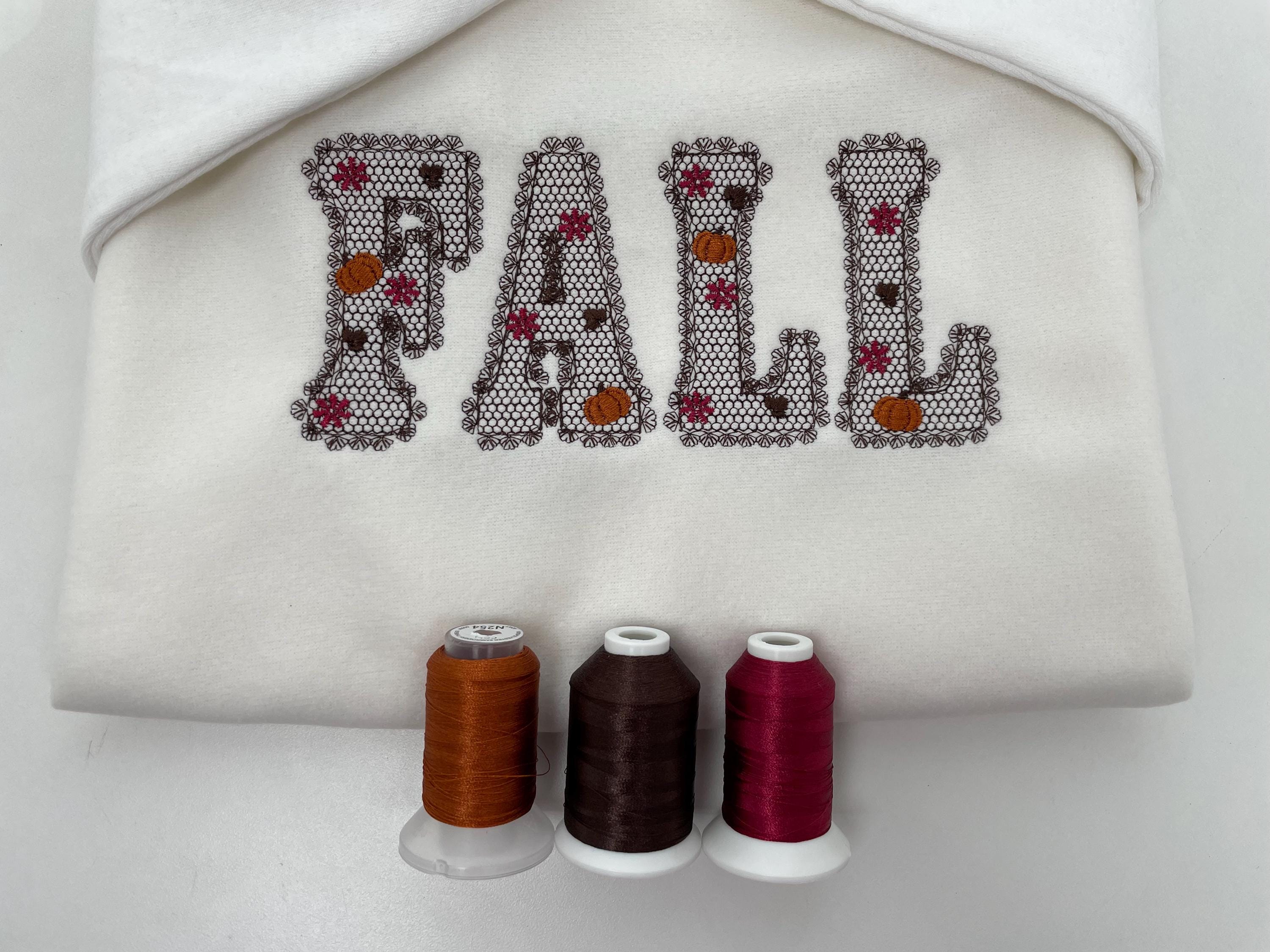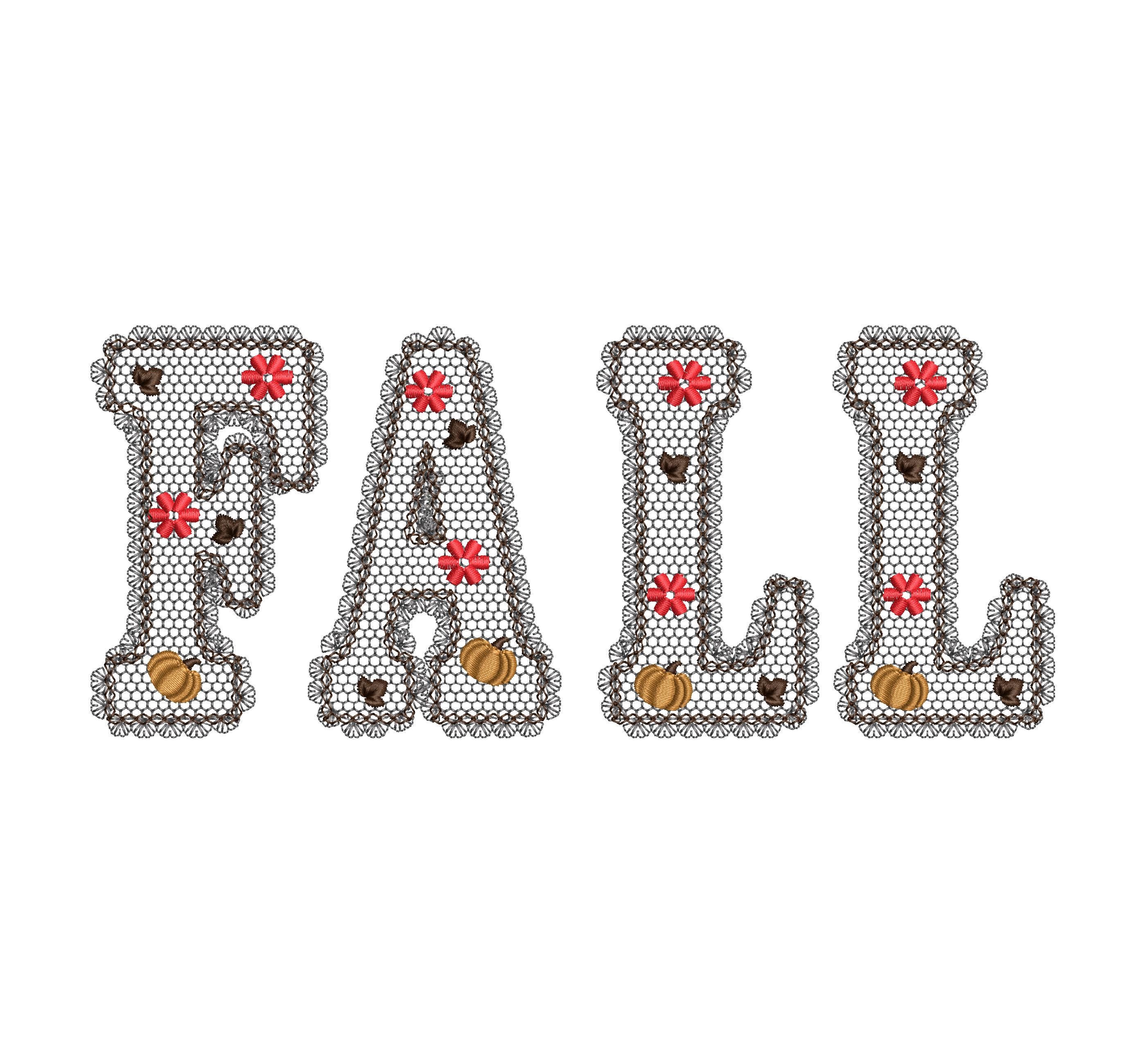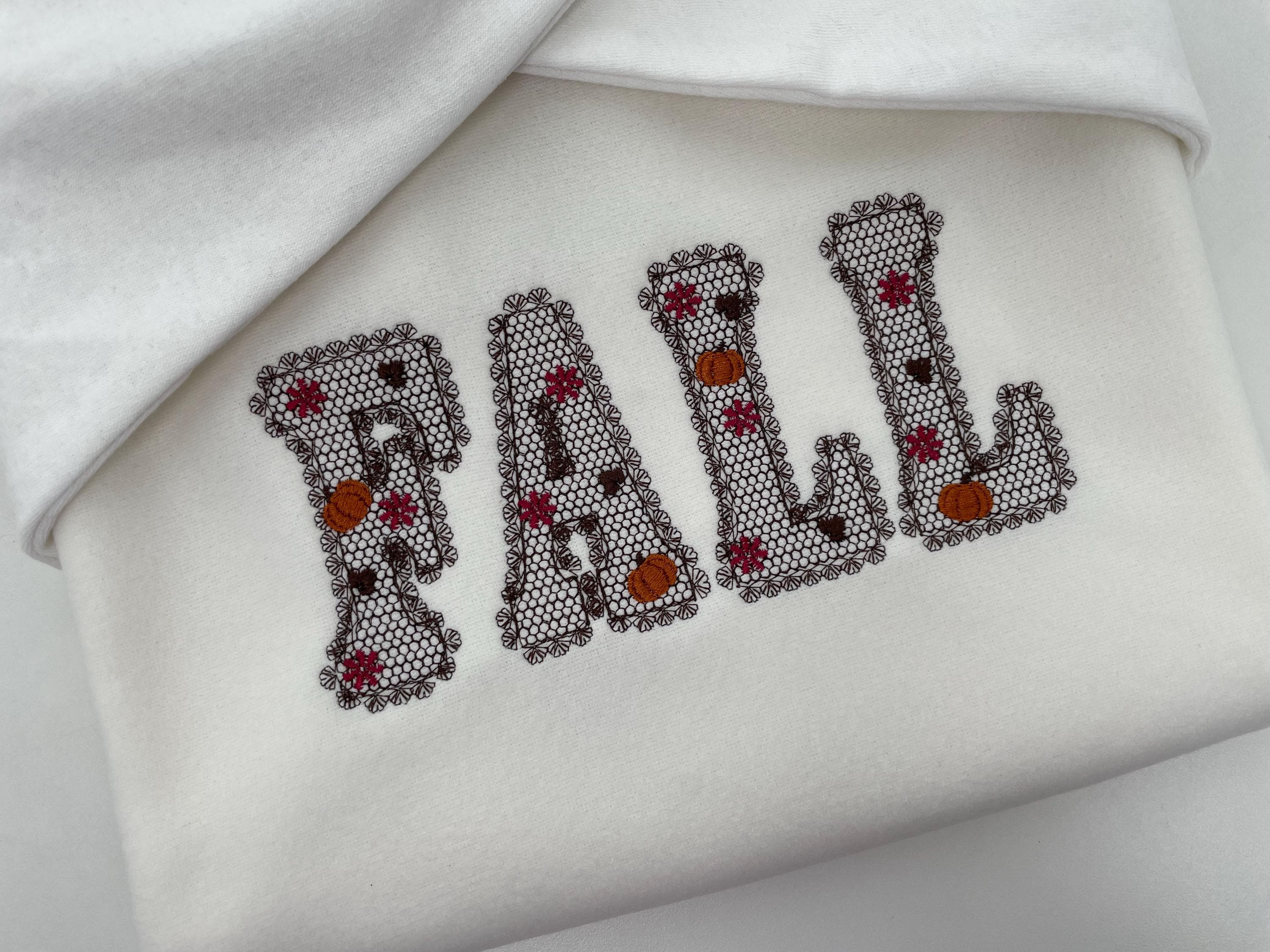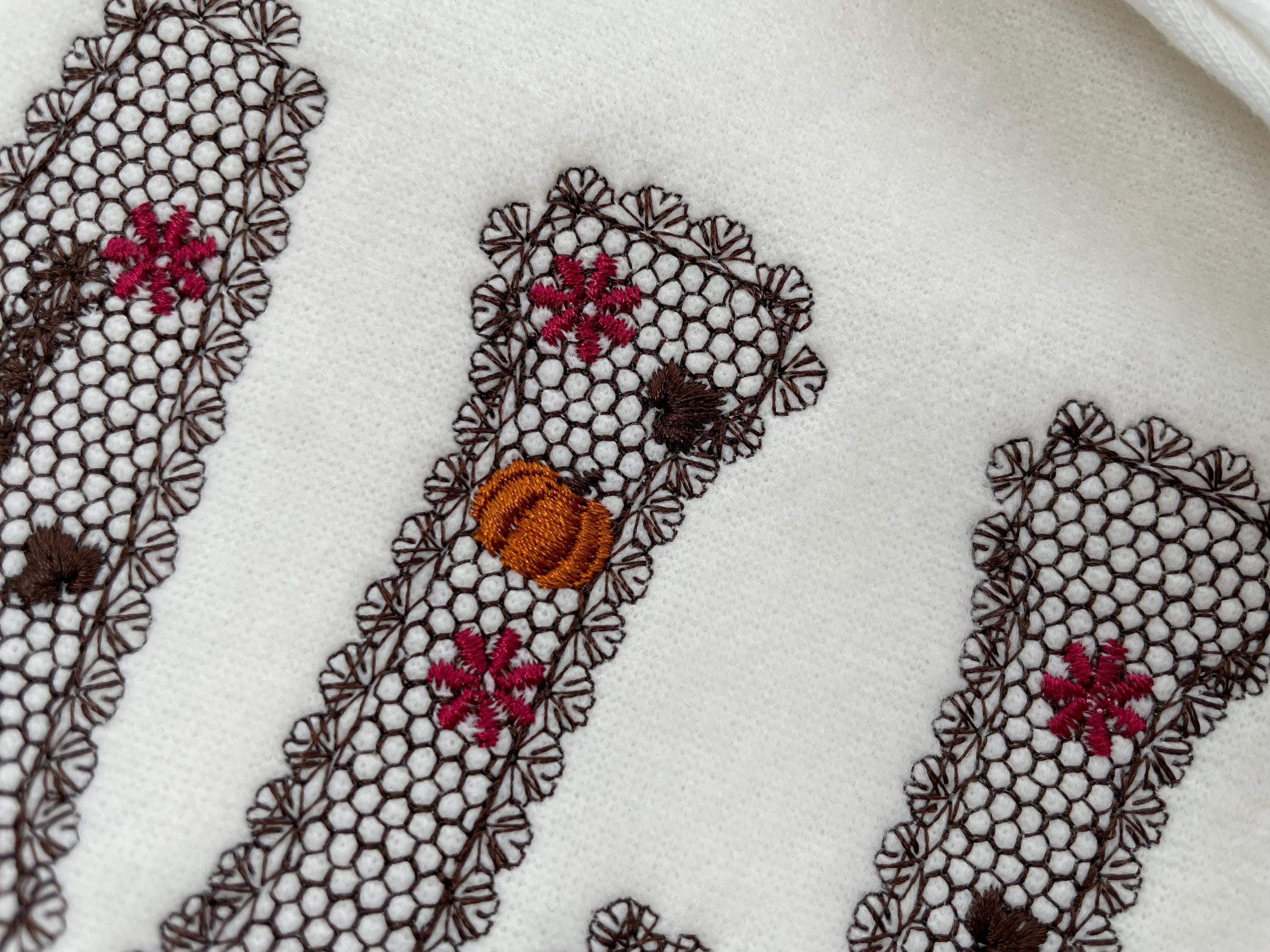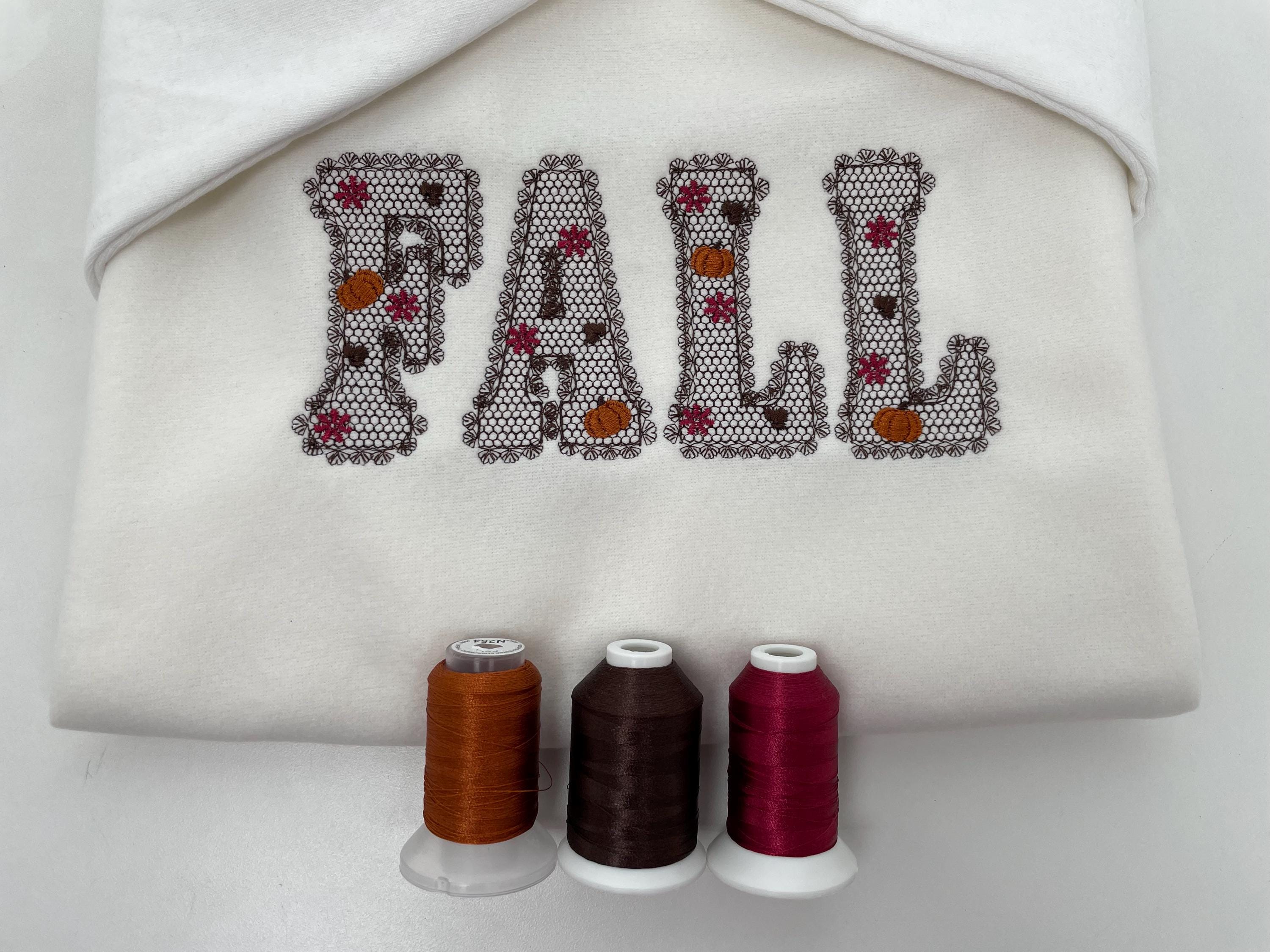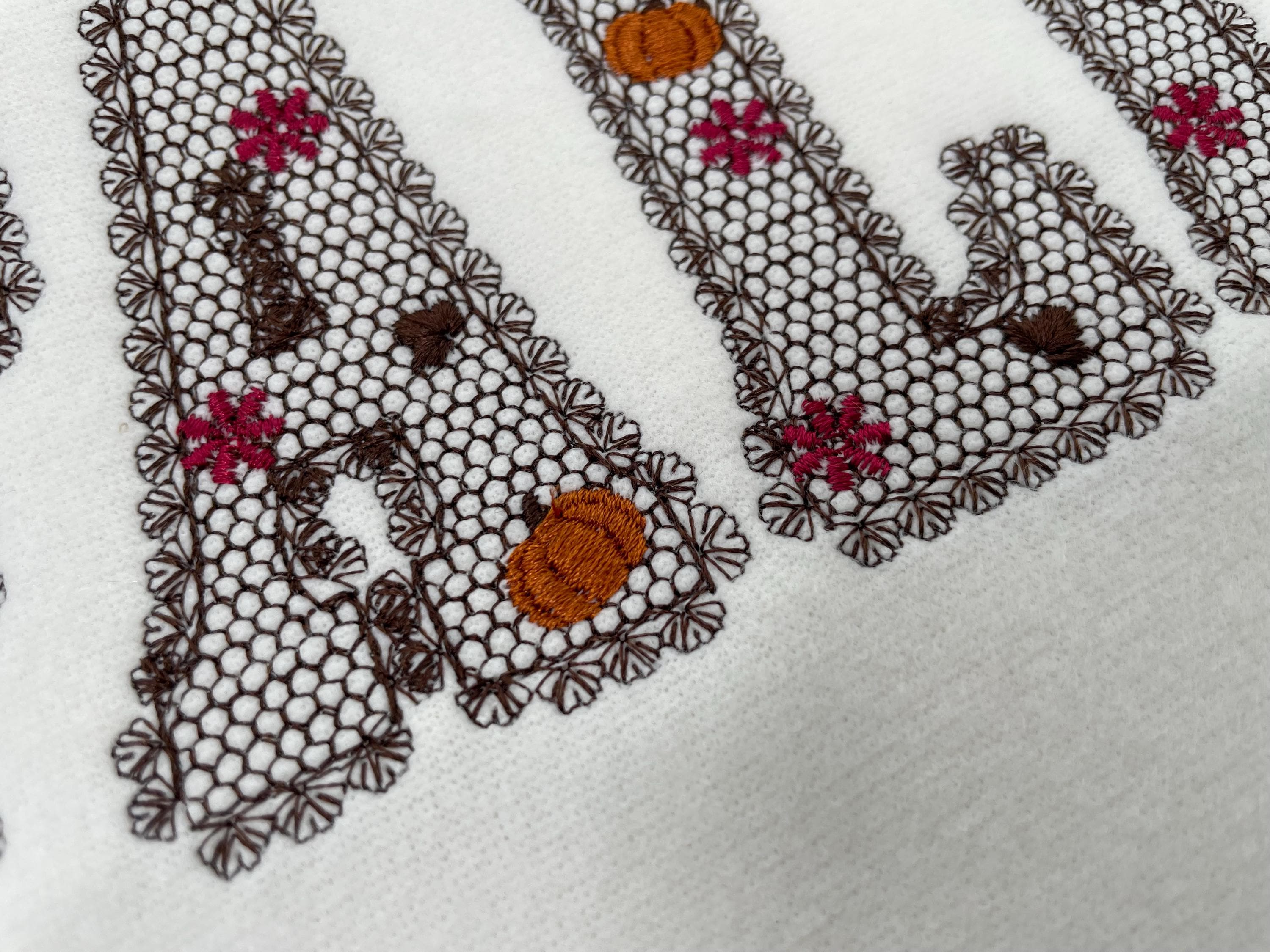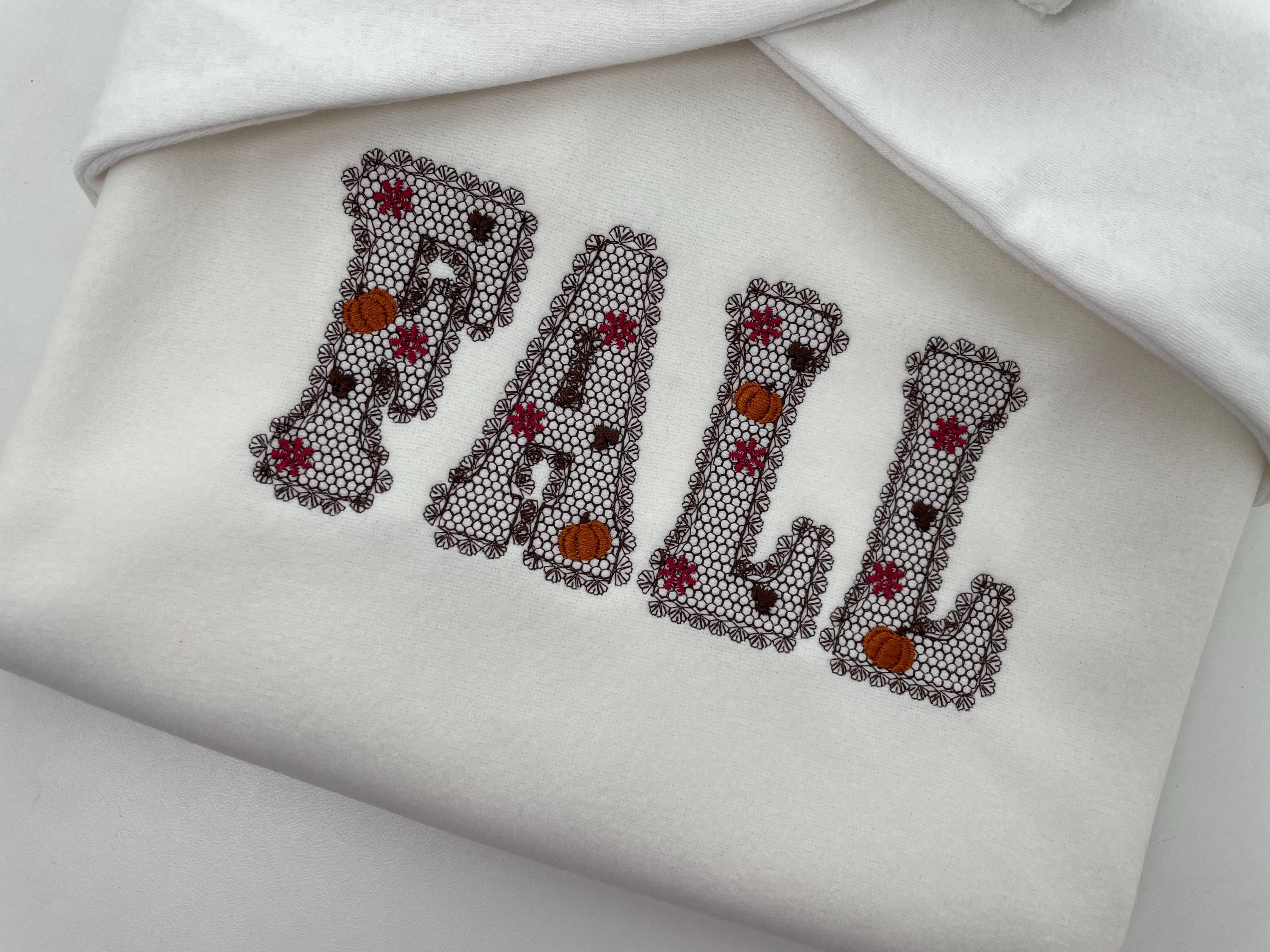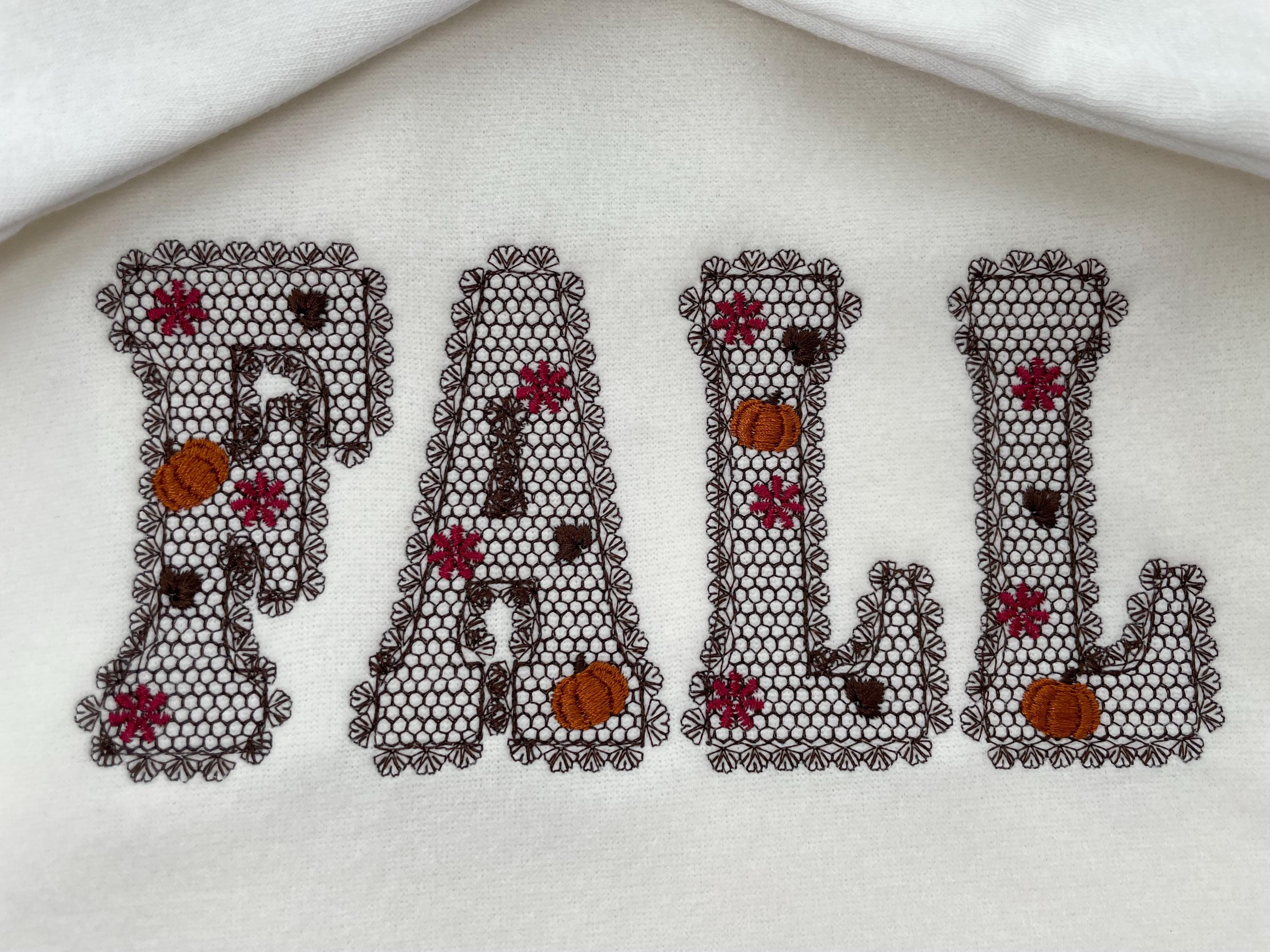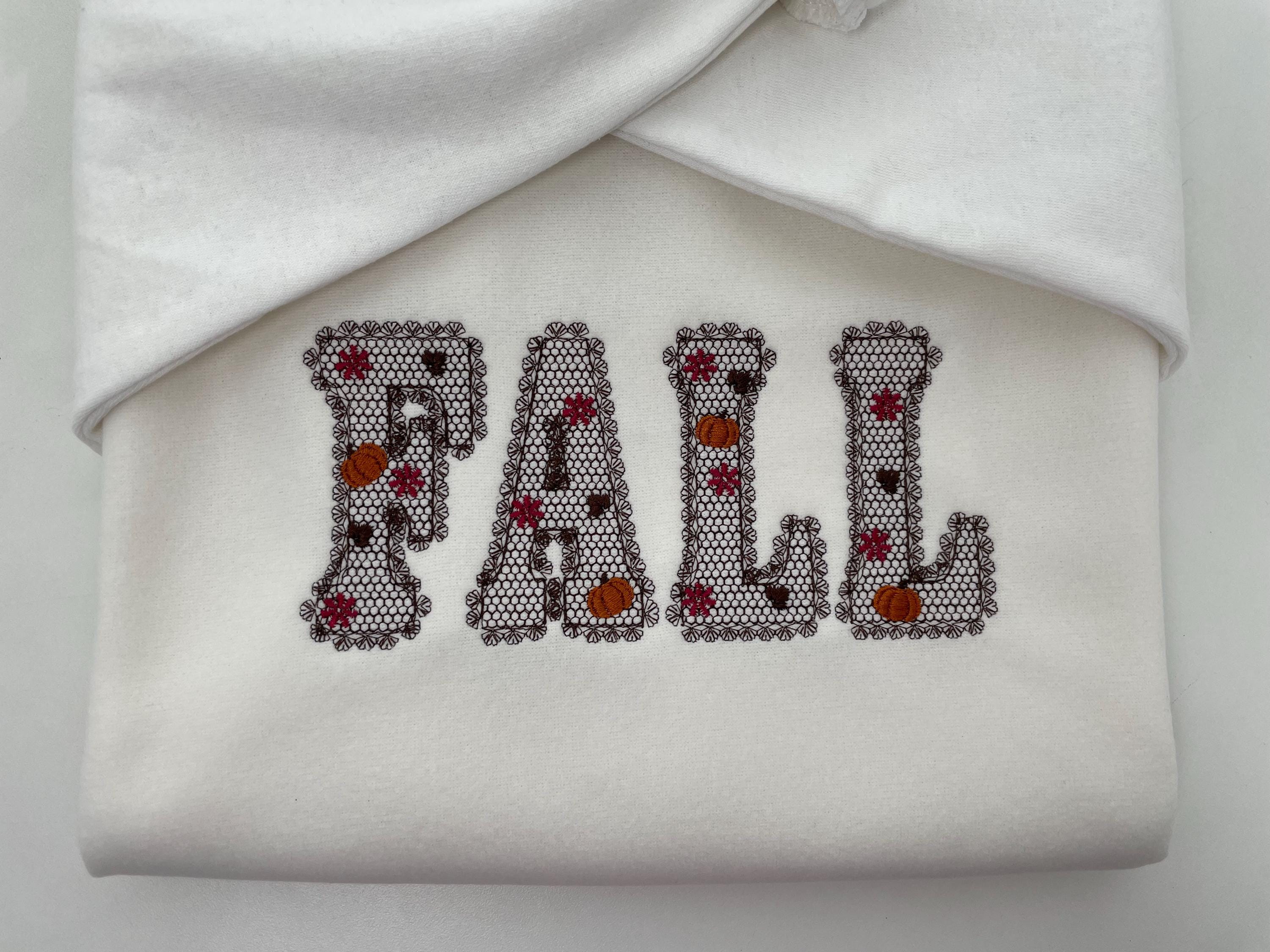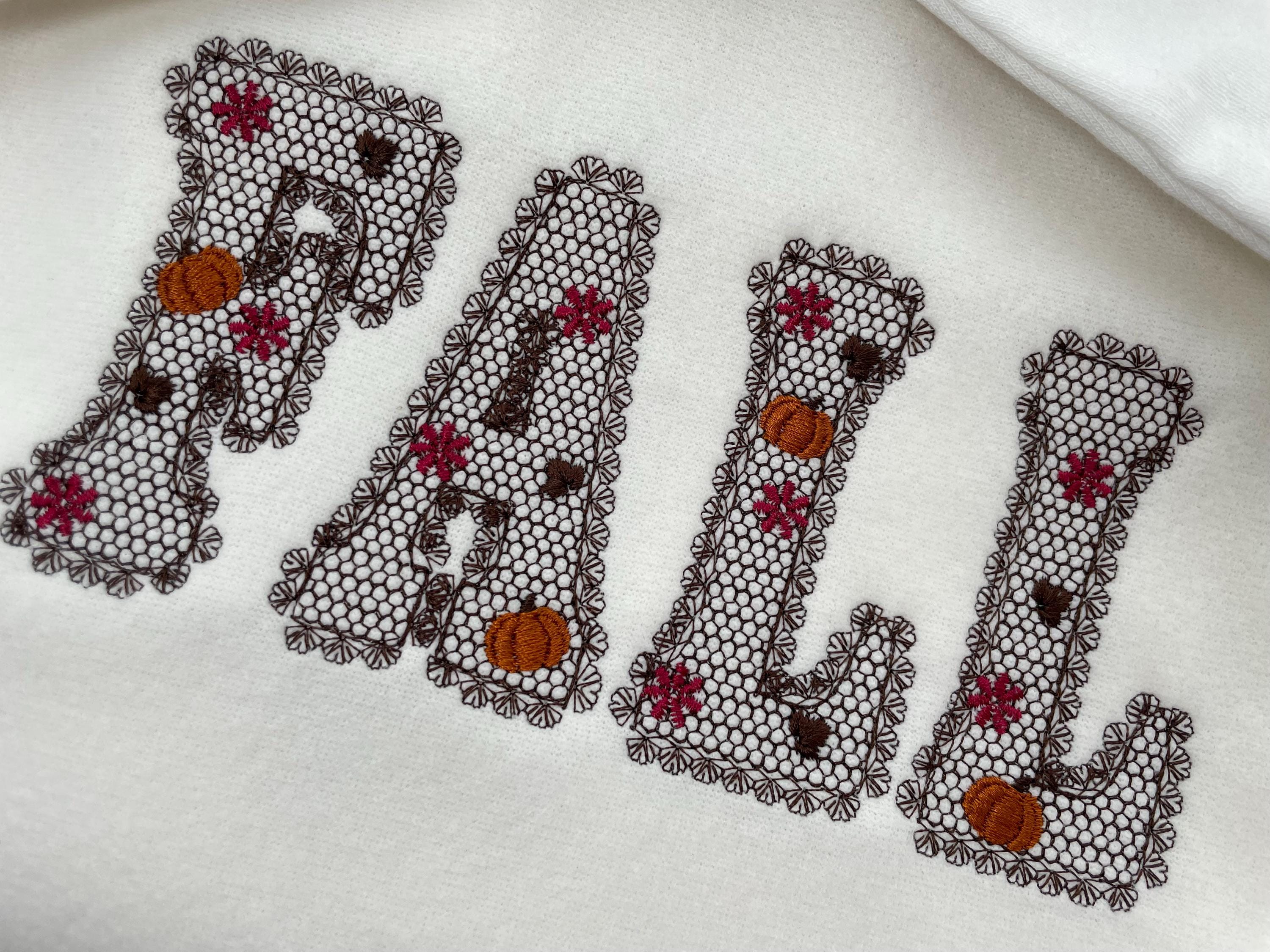
Lace Edge Fall Pumpkin FONT lace patterned Floral Alphabet Monogram Thanksgiving machine embroidery designs assorted sizes 2.5 up to 5 inches
Lace pattern and lace edge are part of the design. The background fabric looks through. Stunning effect!